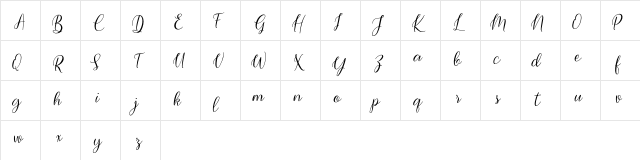
Bimfly Regular
Design Context for Bimfly Typeface
Bimfly is a composed and adaptable typeface that performs quietly and consistently across a wide range of design contexts.